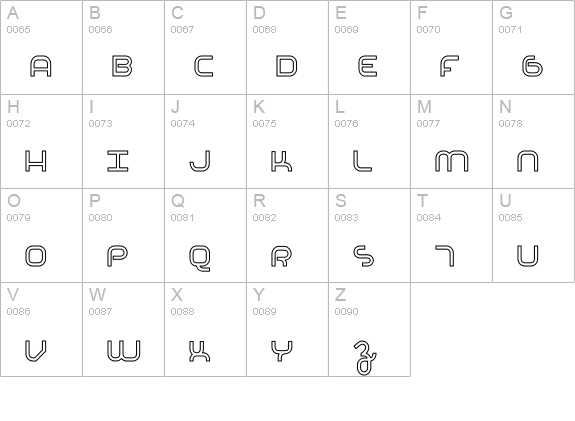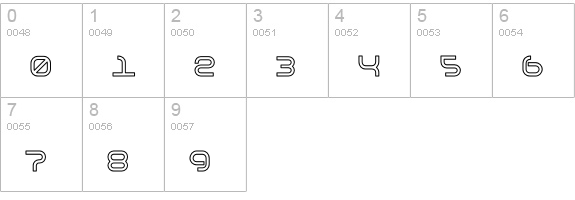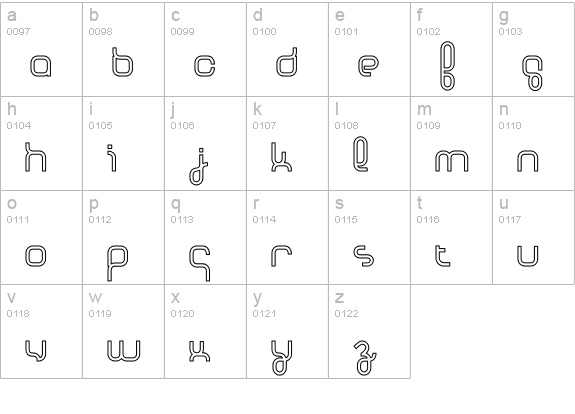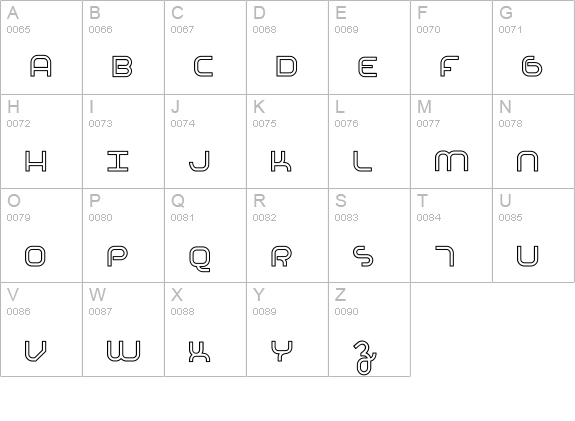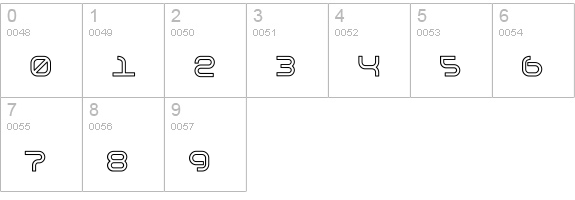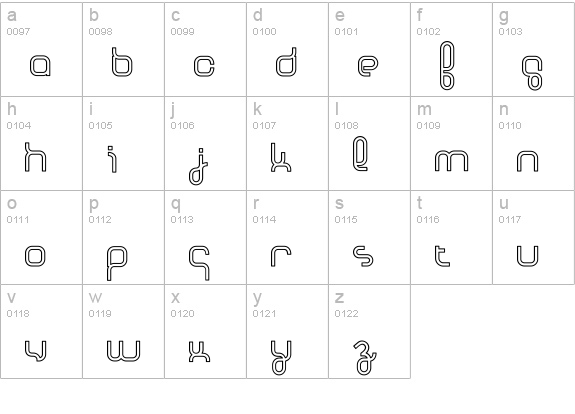
Basis-HeavyOutline is a modern and bold font that exudes strength and confidence. Its heavy outline design makes a powerful statement while maintaining a clean and sleek appearance. This versatile typeface is perfect for creating eye-catching headlines, logos, posters, and more. The sharp lines and bold strokes of Basis-HeavyOutline create a striking visual impact that commands attention. Best of all, Basis-HeavyOutline is available for free download at FontsMarket.com. This means you can easily access this stunning font and incorporate it into your projects without any cost. Don't miss out on the opportunity to add Basis-HeavyOutline to your font collection and elevate your designs with its bold and impactful style.